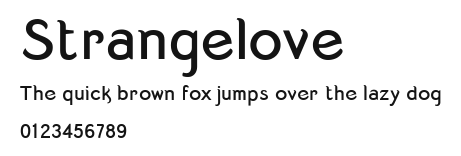
• Font Name: Strangelove
Strangelove.ttf is a modern, elegant sans-serif font designed for ultimate readability and visual harmony. Perfect for branding, headlines, web design, and print materials.